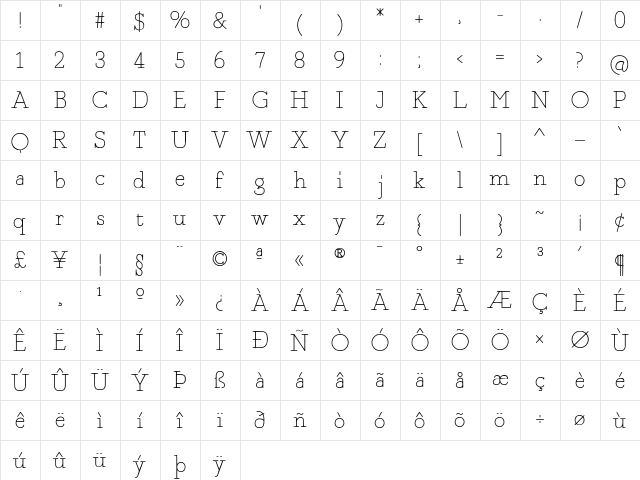
Fragment Core Roman
Design Context for Fragment Core Typeface
Fragment Core is a composed and adaptable typeface that performs quietly and consistently across a wide range of design contexts.